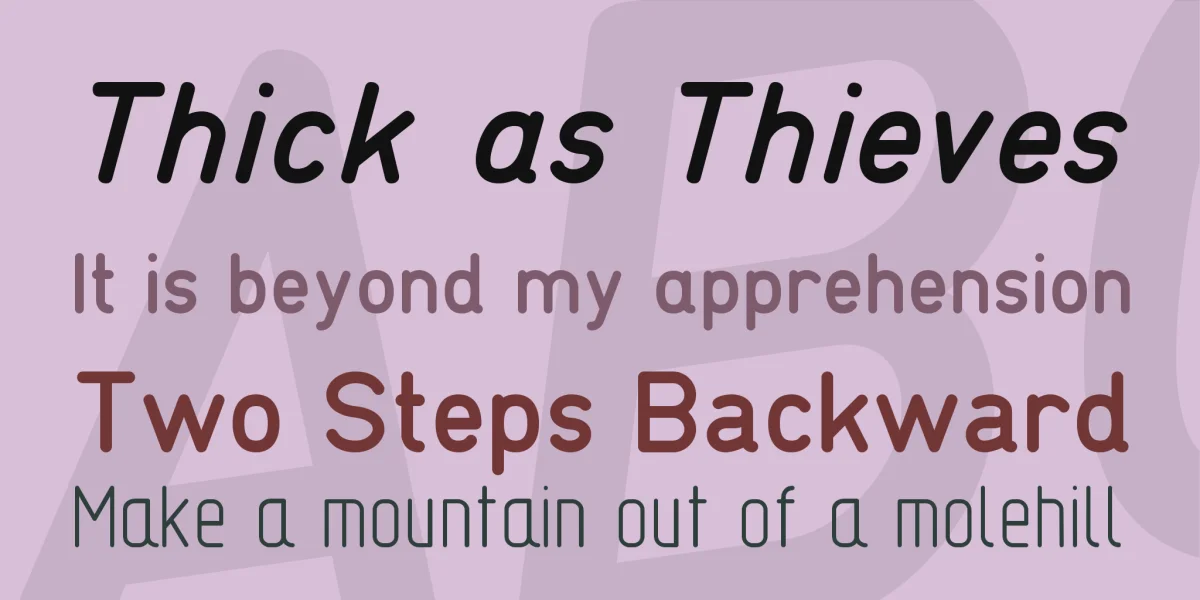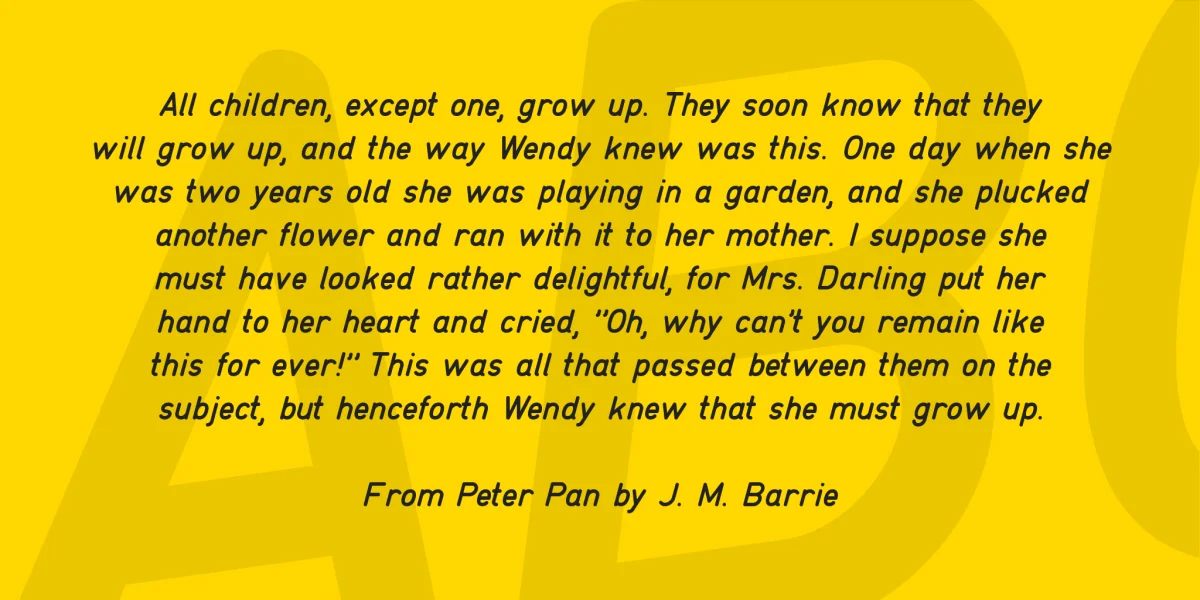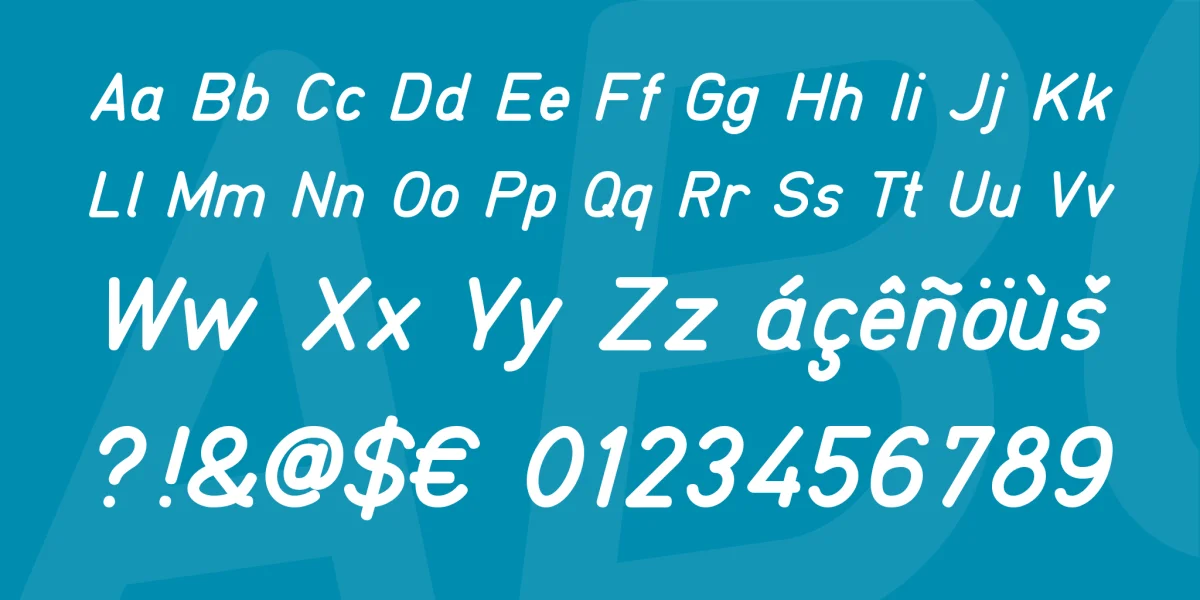
Once in the "early days" on technical drawings, an ornate cursive prevailed (I did this as a "Amptmann Script" in the program) fit this after the first world war not to the much more modern technology and the significant degree linigeren sense of style. How fonts for lettering technical drawings under the DIN 16 and DIN 17 was shortly after the first DIN standard sheet "taper pins to DIN 1" very soon standardized. The basis for these fonts the font recommendation of the Prussian railway administration after patterning IV 44 as DIN 1451 found its way into the DIN standards a little later. Thus, these writings also the same ratio of line width to the height of the capital letters, but with regard to the pen with the nib ends. The writing has - almost unchanged until the late 1960s and was led in the West under the DIN designation continues - with some minor revisions. In the GDR, the standard sheet was also unchanged in the "Technical quality and delivery" briefly taken over by TGL and think of "0 -" indicated that it is actually an old DIN standard. In the early 1970s, then more and more technical drawings were microfilmed. It was found that the bold font with a line width of 1/7 of the cap height tends to tapering and thus unreadable. Also used to label other technical pens were required than for drawing. Thus, as a transitional step, the line width decreases to 1/10 of the cap height, the number of font sizes reduced and so made the crayons also be used for labeling. A short time later, the script was by then the better microfilm suitable for DIN EN ISO 3098th replaced, which was standardized in the GDR in the TGL 31034th Here I offer the original bold version.